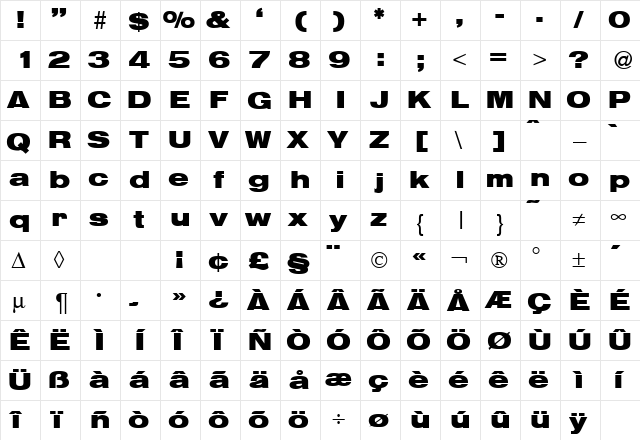
HegelExtended DB Bold
Design Context for HegelExtended DB Typeface
HegelExtended DB is a composed and adaptable typeface that performs quietly and consistently across a wide range of design contexts. The heavy weight commands attention and anchors typographic hierarchies.